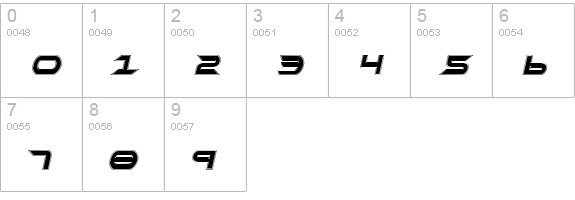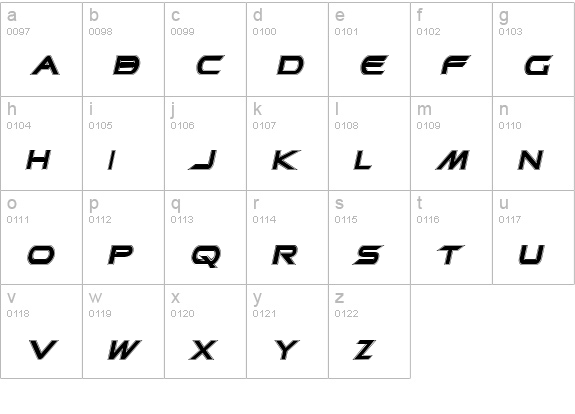
Promethean College Italic is a distinctive, italic variant in the Promethean typeface family \xE2\x80\x94 well suited to design and typography projects.
Promethean College Italic font exudes elegance and sophistication with its sleek and stylish design. Its crisp, slanted lettering adds a touch of modernity to any project, making it a perfect choice for academic or professional use. The italicized strokes convey a sense of movement and dynamism, adding a unique flair to your text. What sets Promethean College Italic font apart is that it is freely available to download at FontsMarket.com. This means you can easily access this premium font without any cost, making it an excellent choice for individuals and businesses looking to elevate their design projects without breaking the bank. Whether you're creating a presentation, designing a logo, or crafting a publication, Promethean College Italic font is sure to make a lasting impression. Upgrade your typography game with this versatile and eye-catching font today.